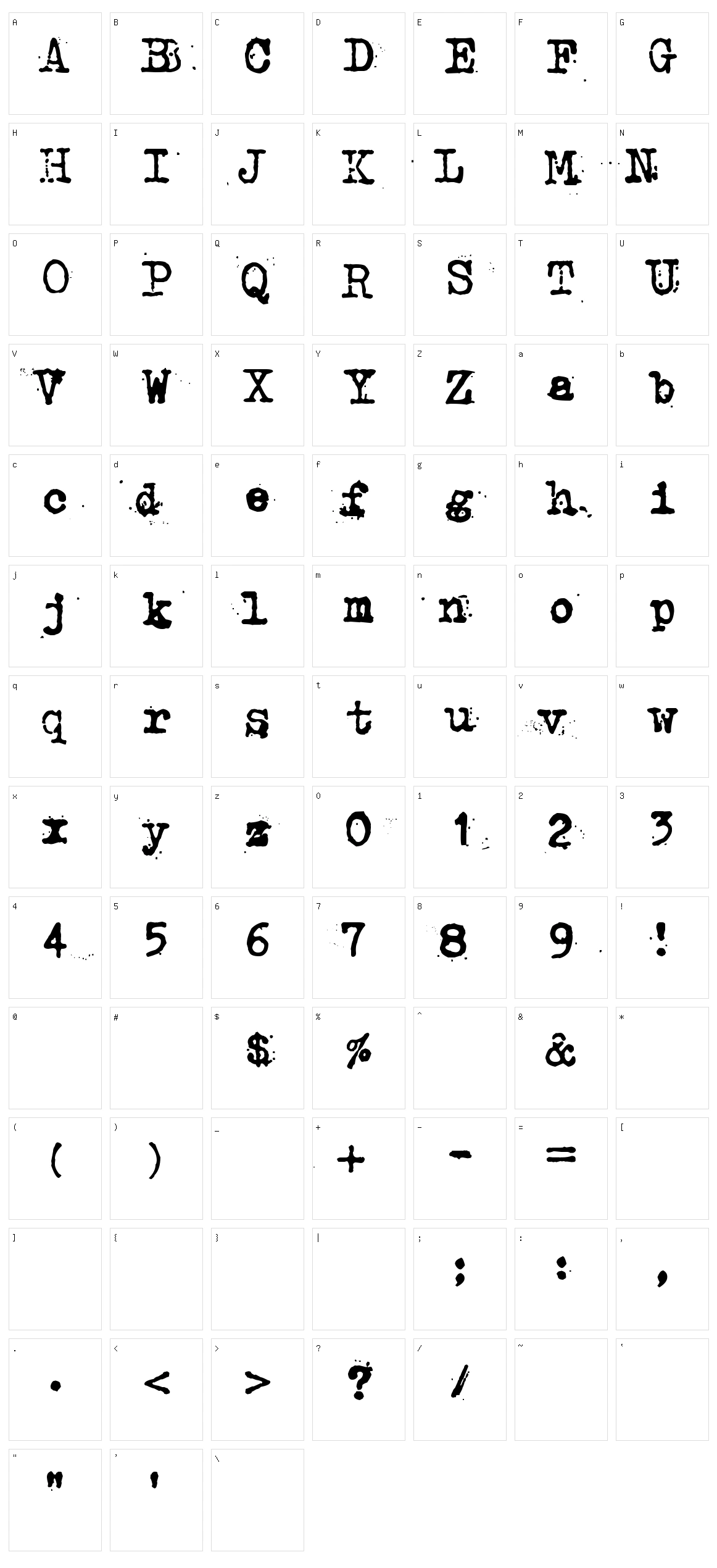
The free font Kosminen Taustasateily is carefully designed by junkohanhero, showcasing a thoughtful balance of creativity and usability and falls under the Typewriter font style. When you download the ZIP file, it contains only 24.14 KB of font files, making it lightweight and quick to download. Please review the license details below to understand permitted usage and distribution rights. If license information is not available, we recommend using this font for personal projects only or contacting the author directly for commercial usage permissions.